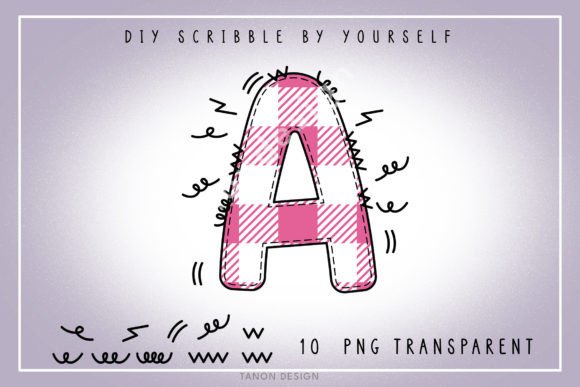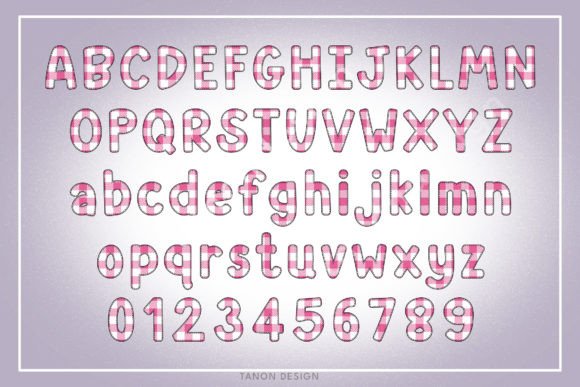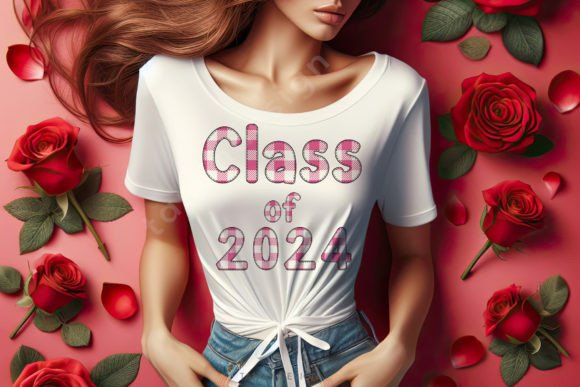
Introduction to Pink Plaid Font Font
Fonts play a crucial role in design, and the Pink Plaid Font font is a typeface that brings both character and versatility to any project. Whether you’re working on a branding project, a website, or a print design, the Pink Plaid Font font offers a unique style that can elevate your work.
It will look fantastic on all your Valentineβs Day and pink love-themed designs including t-shirt designs, mug designs, digital designs, crafts, cards, and any projects.
Key Features of Pink Plaid Font Font
Why Choose Pink Plaid Font Font?
The Pink Plaid Font font is more than just a typeface β it’s a design tool that helps you communicate your message with style and clarity. Its unique character set and versatile design make it suitable for a wide range of applications, from elegant invitations to bold headlines.
With its carefully crafted letterforms and balanced proportions, the Pink Plaid Font font ensures readability and visual appeal across all mediums.
What makes Pink Plaid Font font special?
The Pink Plaid Font font stands out with its unique design, exceptional readability, and versatility across various design applications.